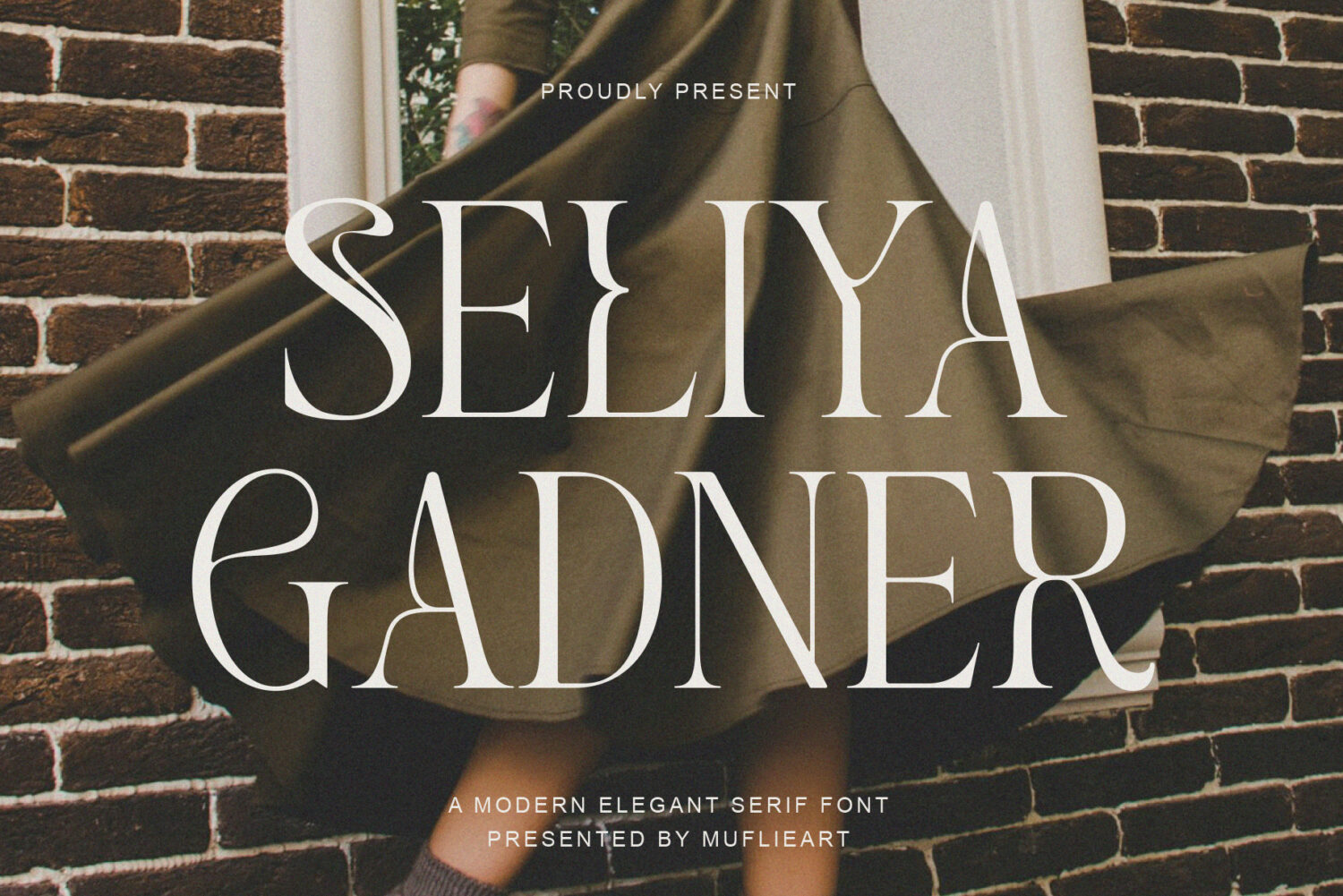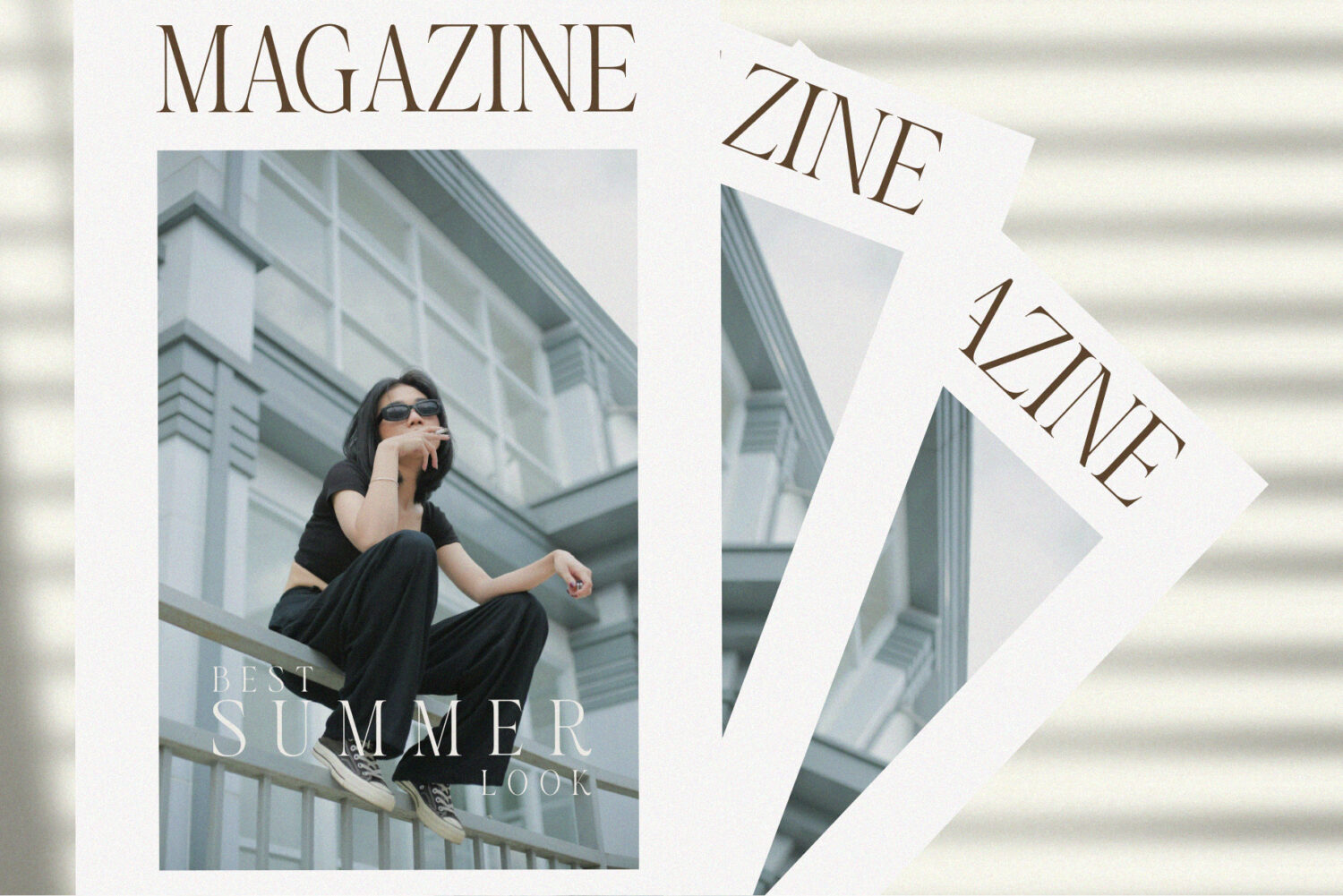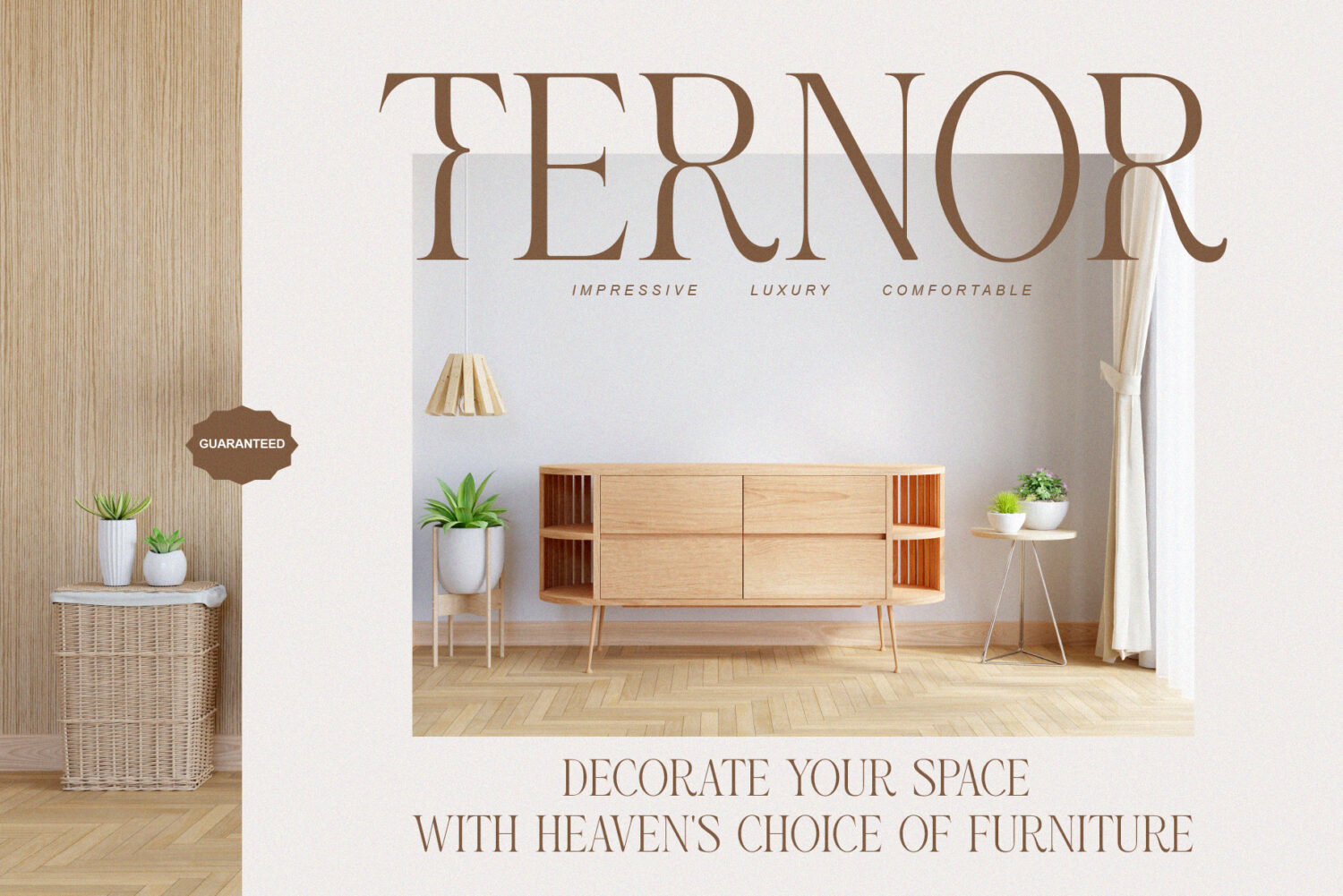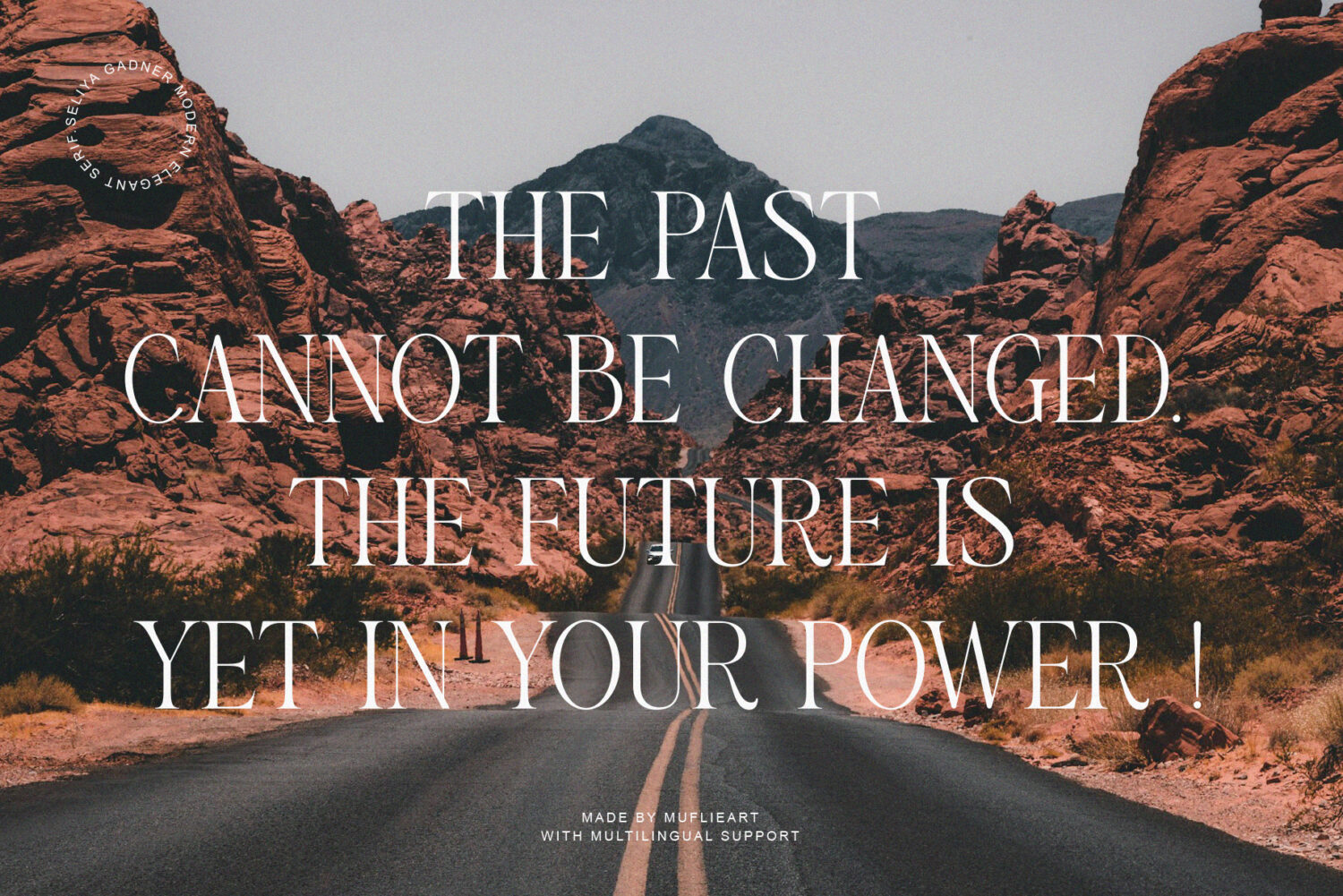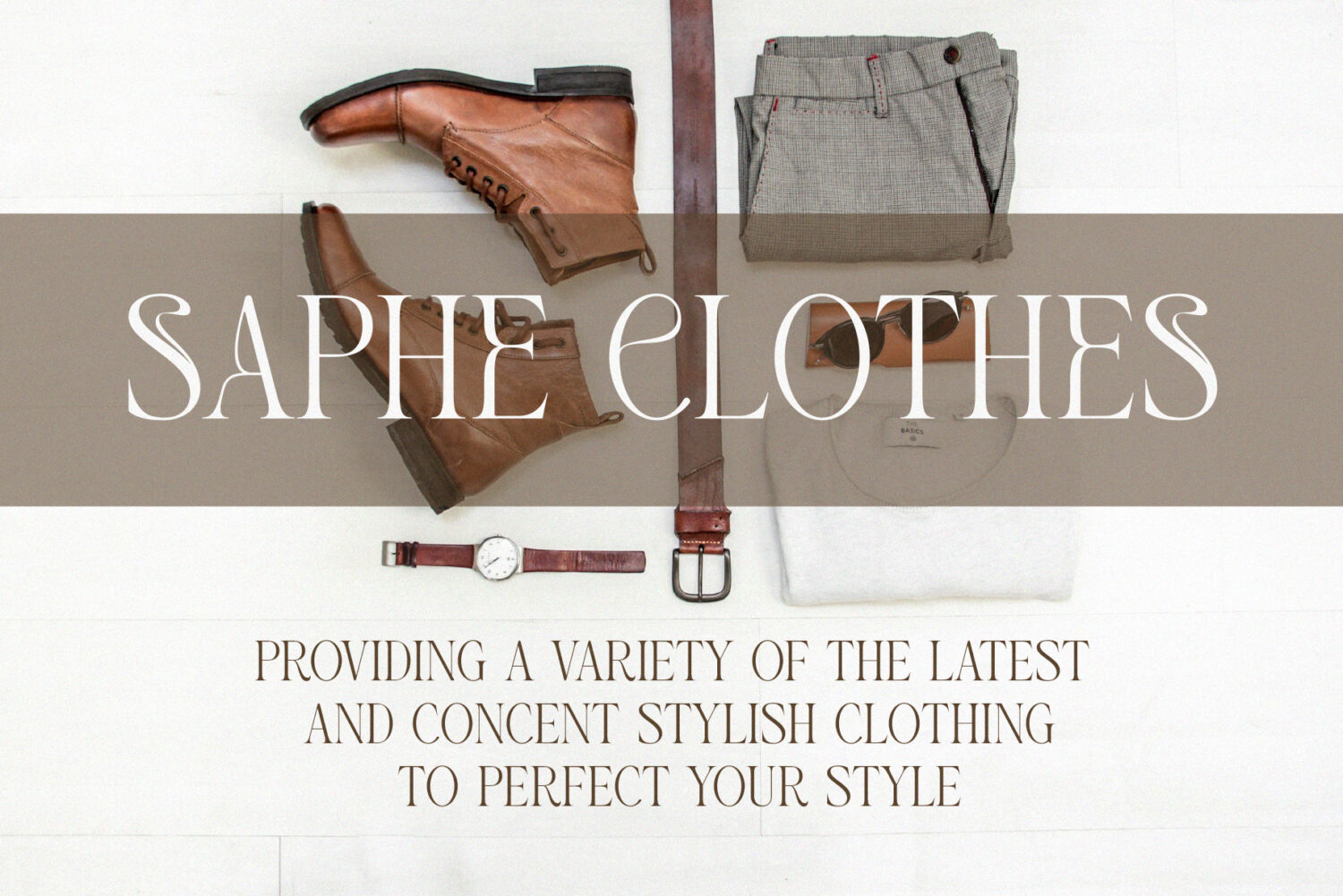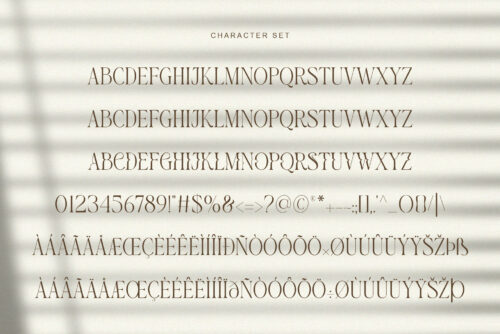
Introducing **Seliya Gadner** the elegant, beautiful, and display modern Serif. With its modern and minimalist look, Seliya Gadner brings a luxurious, classy, and clean style to your projects such as websites, modern logos, brand identities, social media quotes, wedding stationery, magazines, and more!
Seliya Gadner features unique and classy capital letters A to Z and also comes with unique alternates and ligatures making Seliya Gadner a beautiful font that can be customized for various projects and jobs you want.
Seliya Gadner is perfect for: logos, brands, wedding invitations, business cards, greeting cards, posters, magazines, social media, agenda prints, and websites.
– Alternative styles and ligatures (on some fonts)